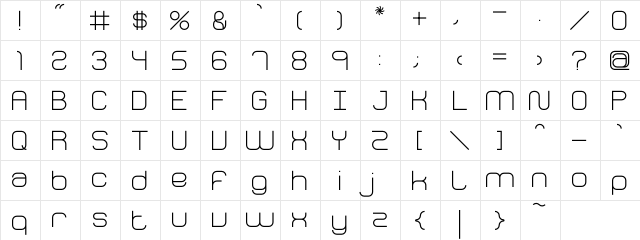
Fh_Perception Regular Font Preview
Fh_Perception Regular
Fh_Perception Regular Font Details
| Foundry | Dan Meyer (Fictionalhead) |
| Designer | Dan Meyer (Fictionalhead) |
Design Context for Fh_Perception Typeface
Fh_Perception is a composed and adaptable typeface that performs quietly and consistently across a wide range of design contexts.